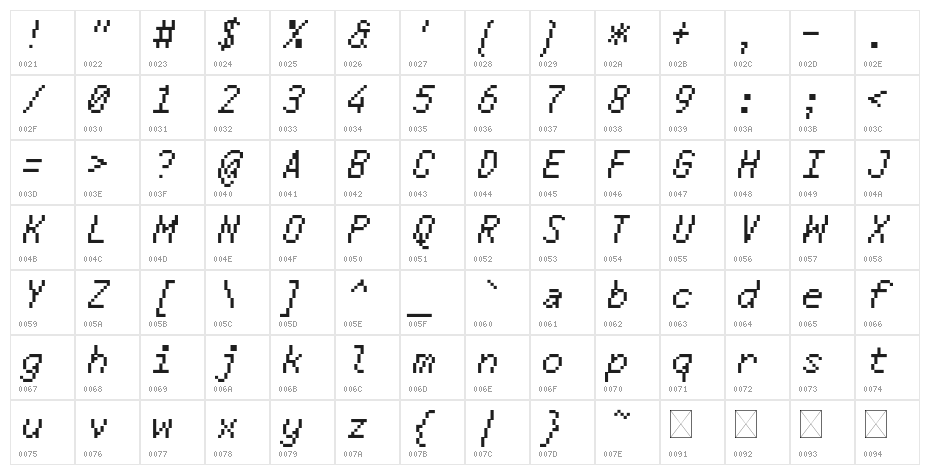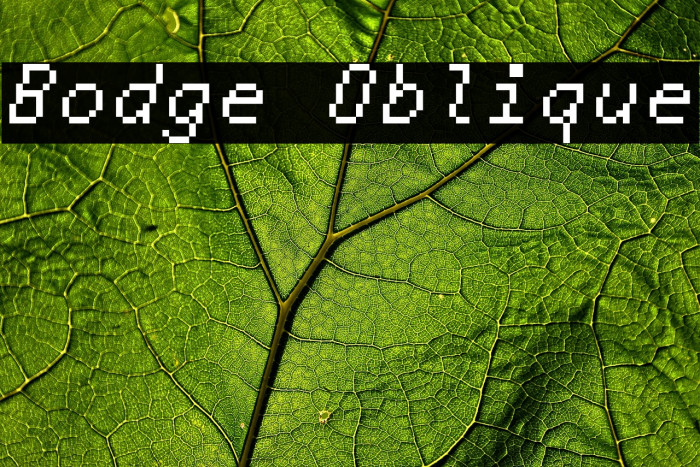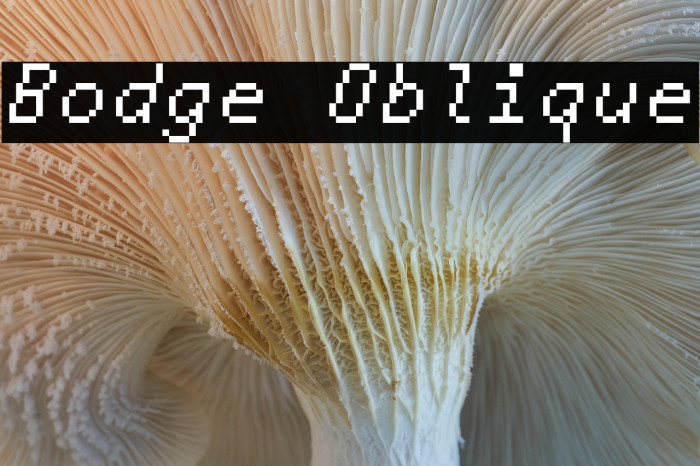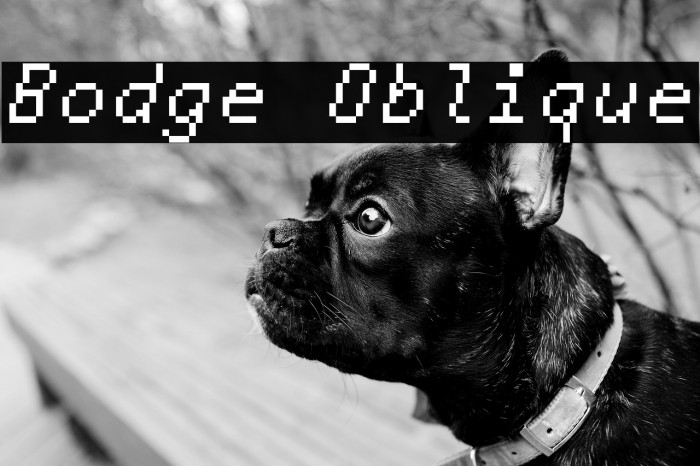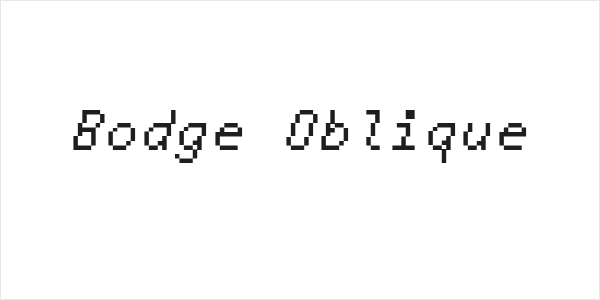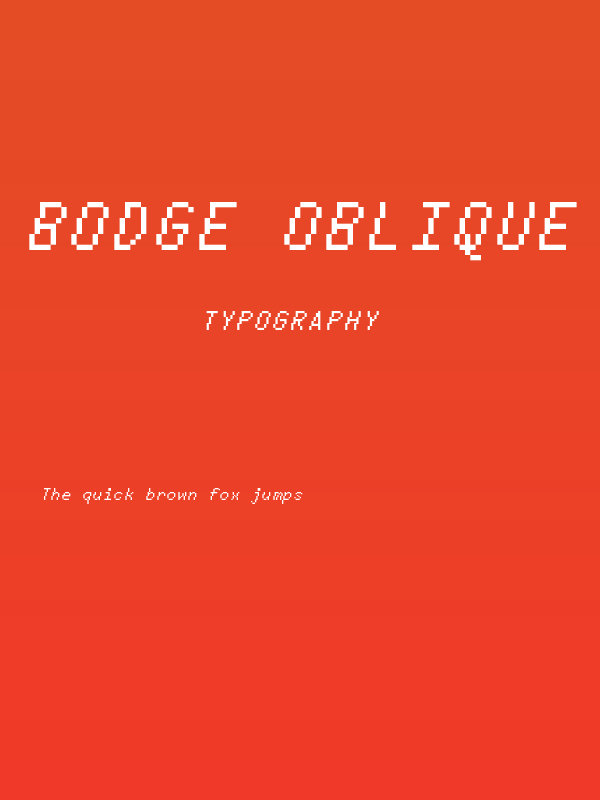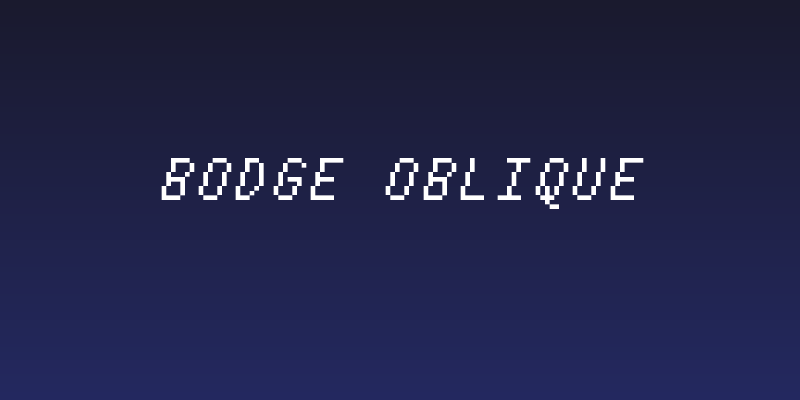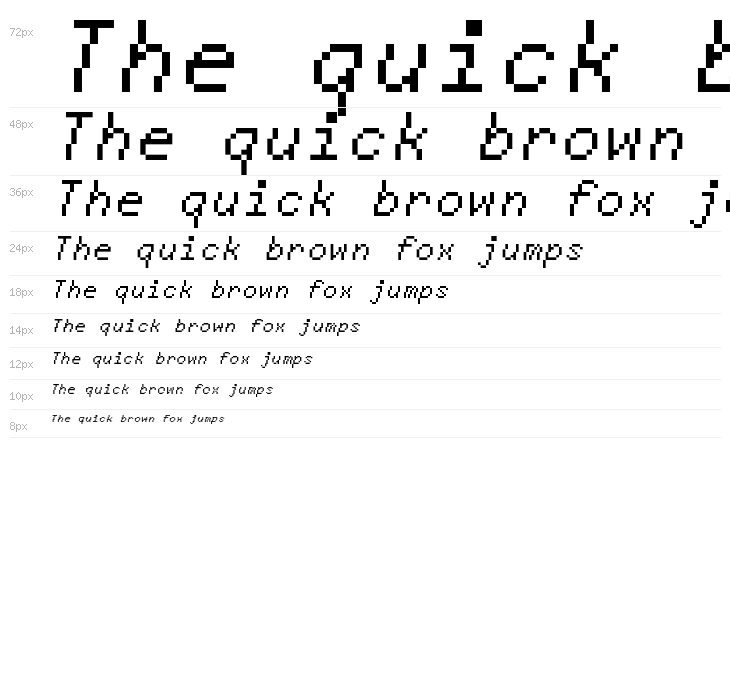
Bodge Oblique Font
Bodge Oblique Description
This font features a pixelated, digital style reminiscent of early computer graphics and video game typography. Each character is composed of a grid-like structure, giving it a distinct, blocky appearance. The slanted, oblique orientation adds a dynamic and modern twist to the otherwise retro aesthetic. The uppercase and lowercase letters maintain a consistent height, contributing to a uniform look. Numbers and special characters are designed with the same pixelated style, ensuring cohesion across all elements. This font's unique design makes it ideal for projects that aim to evoke nostalgia or a tech-inspired theme.
| Overall Style | Retro, Digital |
| Use Case | Headlines, Logos, Digital Art |
| Proposed Projects | Ideal for video game design, tech-themed posters, retro digital art, and nostalgic branding projects. |